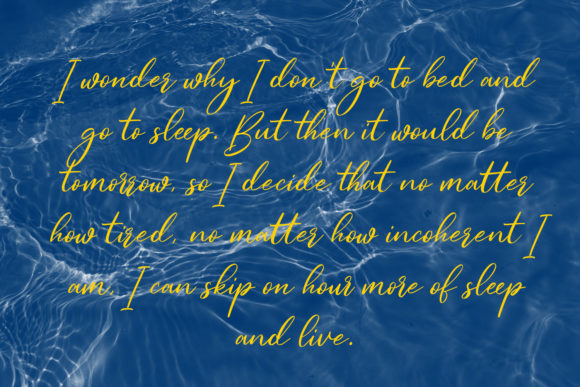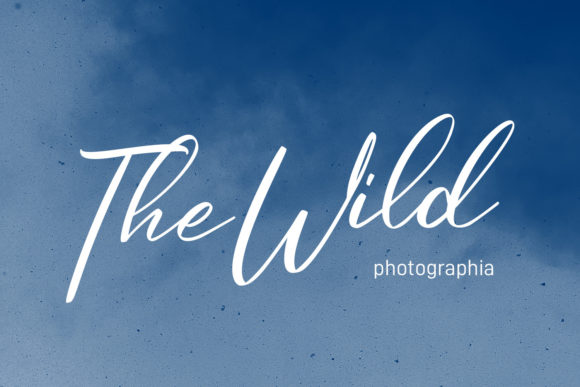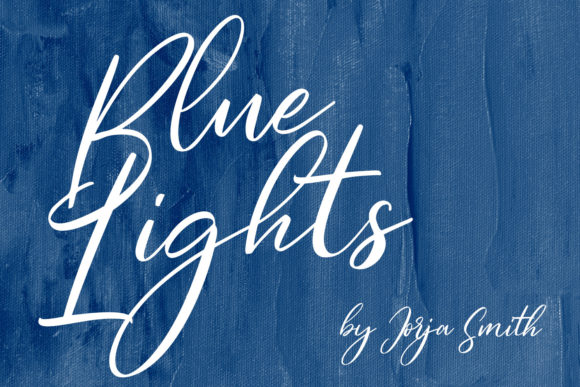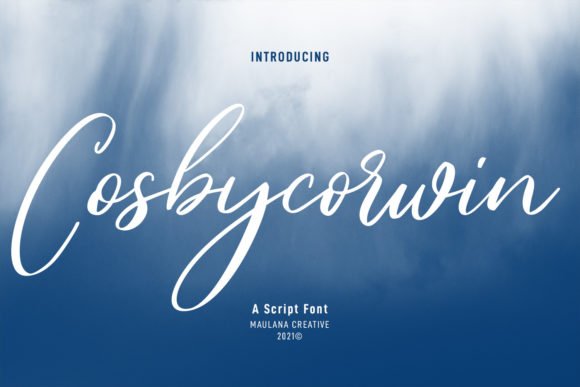
Introduction to Cosbycorwin Script Font
Cosbycorwin Script is an exquisite handwritten font, masterfully designed to become a true favorite.
Why Choose Cosbycorwin Script Font?
Cosbycorwin Script Font offers exceptional quality and versatility, making it a valuable addition to your design toolkit. Whether you’re creating for personal projects or commercial use, Cosbycorwin Script Font delivers professional results.